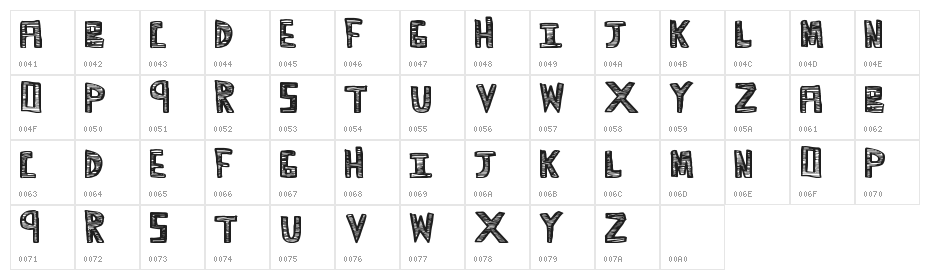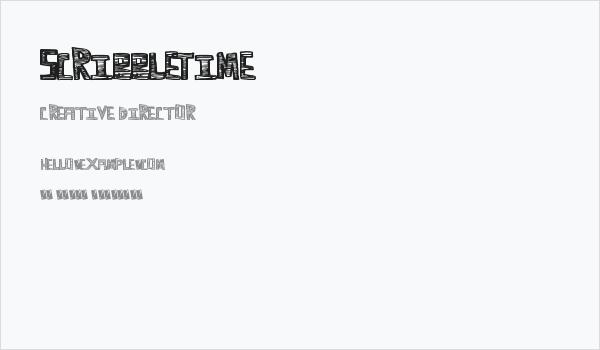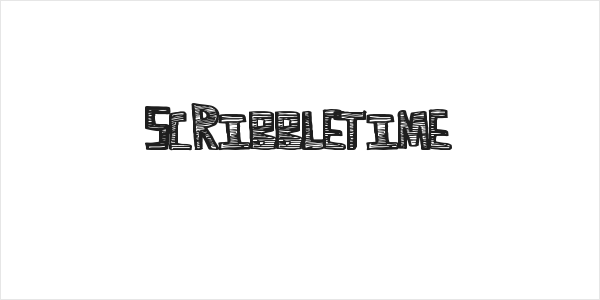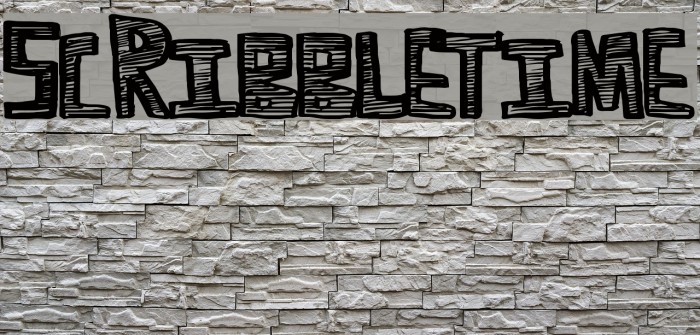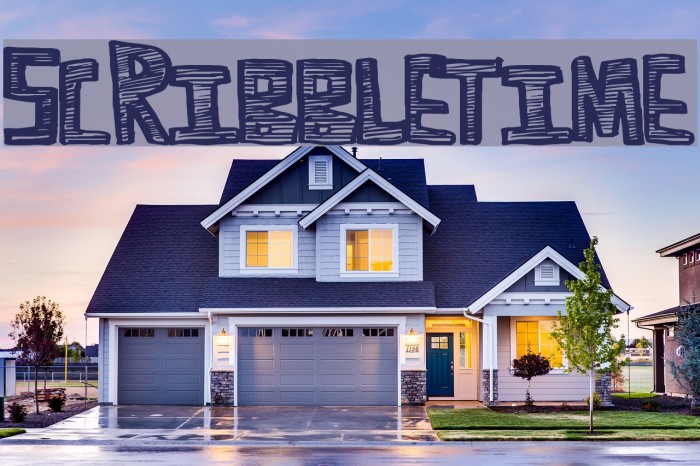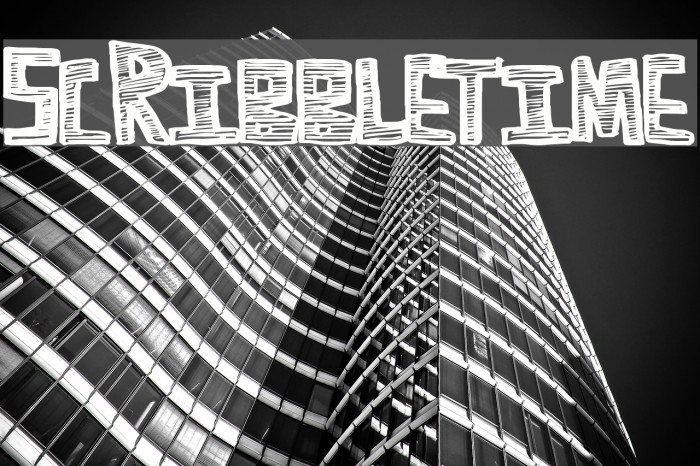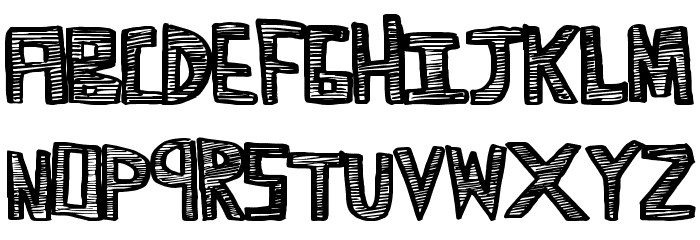
ScribbleTime Font
ScribbleTime Description
This font features a playful, hand-drawn style with a scribbled texture that gives it a casual and artistic appearance. The letters are bold and slightly irregular, adding to the whimsical and informal feel. The strokes are thick and consistent, creating a strong visual impact. The uppercase and lowercase letters maintain a uniform height, contributing to a cohesive look. The font's unique character is further enhanced by its sketch-like lines, which add depth and personality. This style is ideal for projects that aim to convey creativity and fun.
| Proposed Projects | Ideal for children's books, creative posters, casual branding, and artistic invitations. |